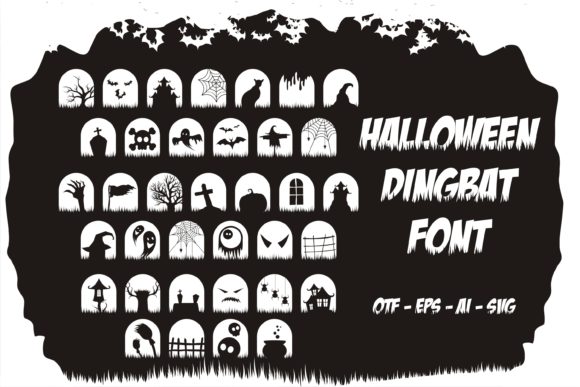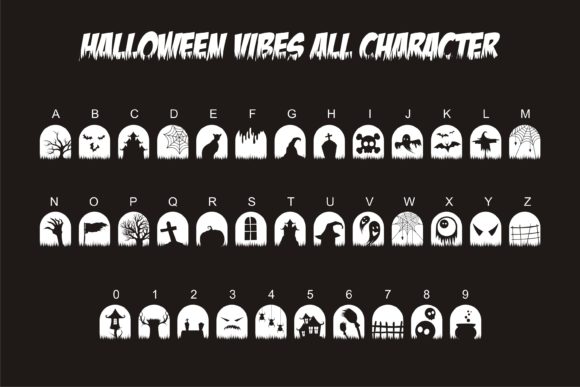
Halloween Vibes Font
About Halloween Vibes Font
“Halloween Vibes” is a cool, dramatic, and spooky dingbats font that captures the essence of the Halloween season. This font is designed to add a touch of mystery and excitement to your designs, making it a fantastic asset for any project that aims to evoke a spooky or eerie atmosphere.
With “Halloween Vibes,” you can instantly infuse your designs with the spirit of Halloween. The font features a range of symbols and icons related to the holiday, including bats, ghosts, witches, pumpkins, skulls, and more. These elements can be used to create eye-catching titles, headers, or decorative elements that instantly set the mood for Halloween-themed designs.
No matter the topic or purpose of your project, “Halloween Vibes” has the potential to elevate your creations. Whether you’re designing party invitations, social media graphics, posters, or even merchandise, this font will add a distinctive and captivating touch.
The dramatic and spooky nature of “Halloween Vibes” allows it to be applied to various creative projects. It is ideal for designing Halloween party flyers, haunted house event posters, horror movie promotions, or any content that aims to create a chilling and thrilling ambiance. Additionally, “Halloween Vibes” can be used for crafting, scrapbooking, or DIY projects, allowing you to add a spooky twist to your creations.
To make the most of “Halloween Vibes,” consider experimenting with different sizes, colors, and layering techniques. Combine the dingbats symbols with other fonts to create captivating compositions, or use them as standalone elements for maximum impact. The font’s detailed and intricate design ensures that your designs will stand out and grab attention.
Whether you’re a graphic designer, event organizer, or Halloween enthusiast, “Halloween Vibes” is a valuable addition to your fonts’ library. Its spooky and dramatic nature provides endless opportunities for creative expression, allowing you to create memorable and engaging designs that embrace the spirit of Halloween.
In summary, “Halloween Vibes” is a cool, dramatic, and spooky dingbats font that enhances any project with the essence of Halloween. Its range of symbols and icons related to the holiday allows for versatile and captivating designs. Whether you’re working on event promotions, social media graphics, or creative crafts, this font will elevate your creations and create a spooky and exciting vibe.